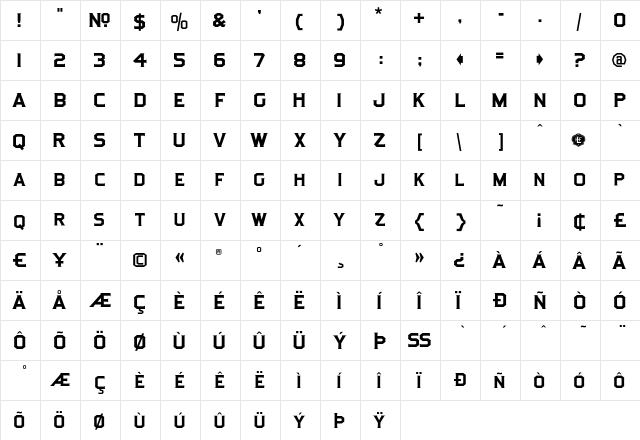
LHFAntiqueHalfBlock Regular
Design Context for LHFAntiqueHalfBlock Typeface
LHFAntiqueHalfBlock has the warm character of retro typography — evoking diners, record sleeves, and the golden age of print advertising.
Ideal for diner signage, record shop branding, 70s/80s-themed projects, and heritage product labels.
Font Pairing: Combine LHFAntiqueHalfBlock with a simple slab or neutral sans — period-accurate companions reinforce the vintage feel without competing for attention.
Pro Tip: Lean into LHFAntiqueHalfBlock's period character by pairing it with aged paper textures, muted colour palettes, and vintage illustration styles.